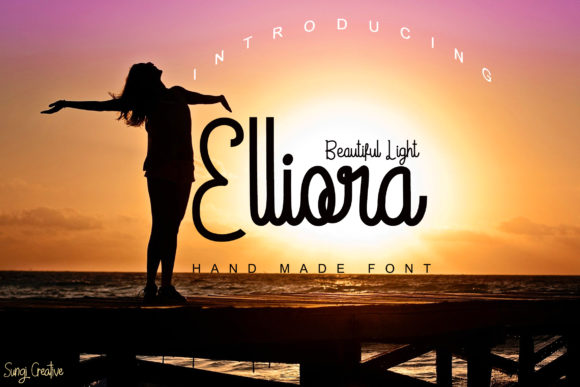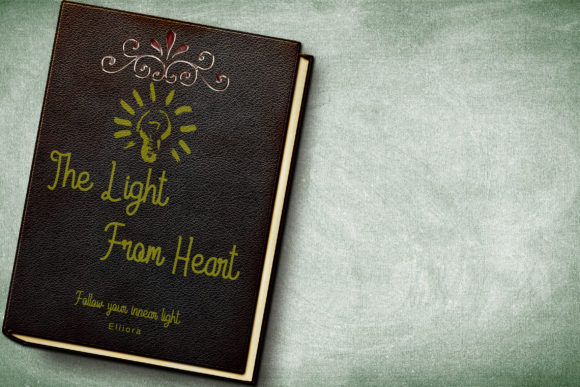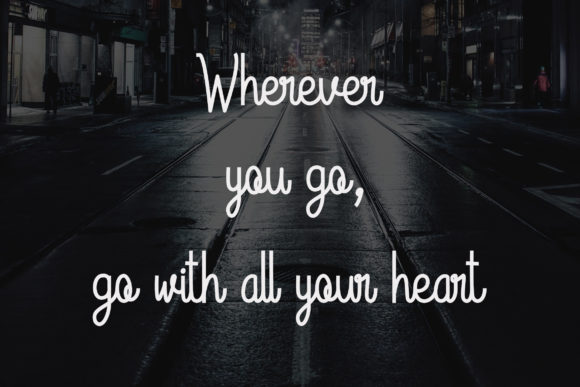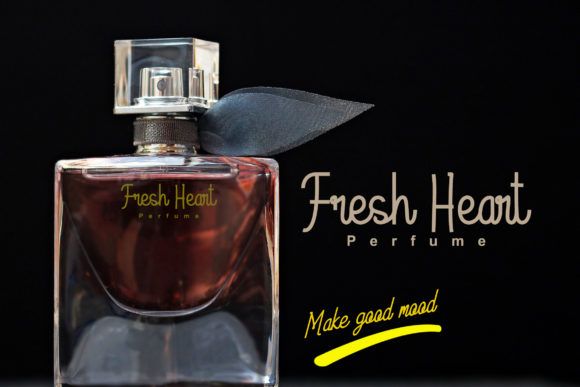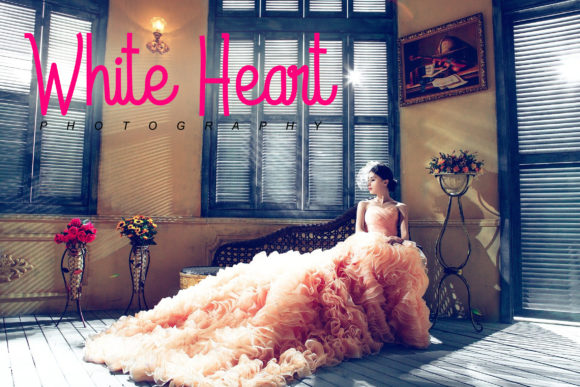
Elliora Font
About Elliora Font
Elliora is a bold script, carefully handcrafted to become a true favorite. Its casual charm makes it appear wonderfully down-to-earth, readable and, ultimately, incredibly versatile. Elliora will look outstanding in any context, whether it’s being used on busy backgrounds or as a standalone headline!